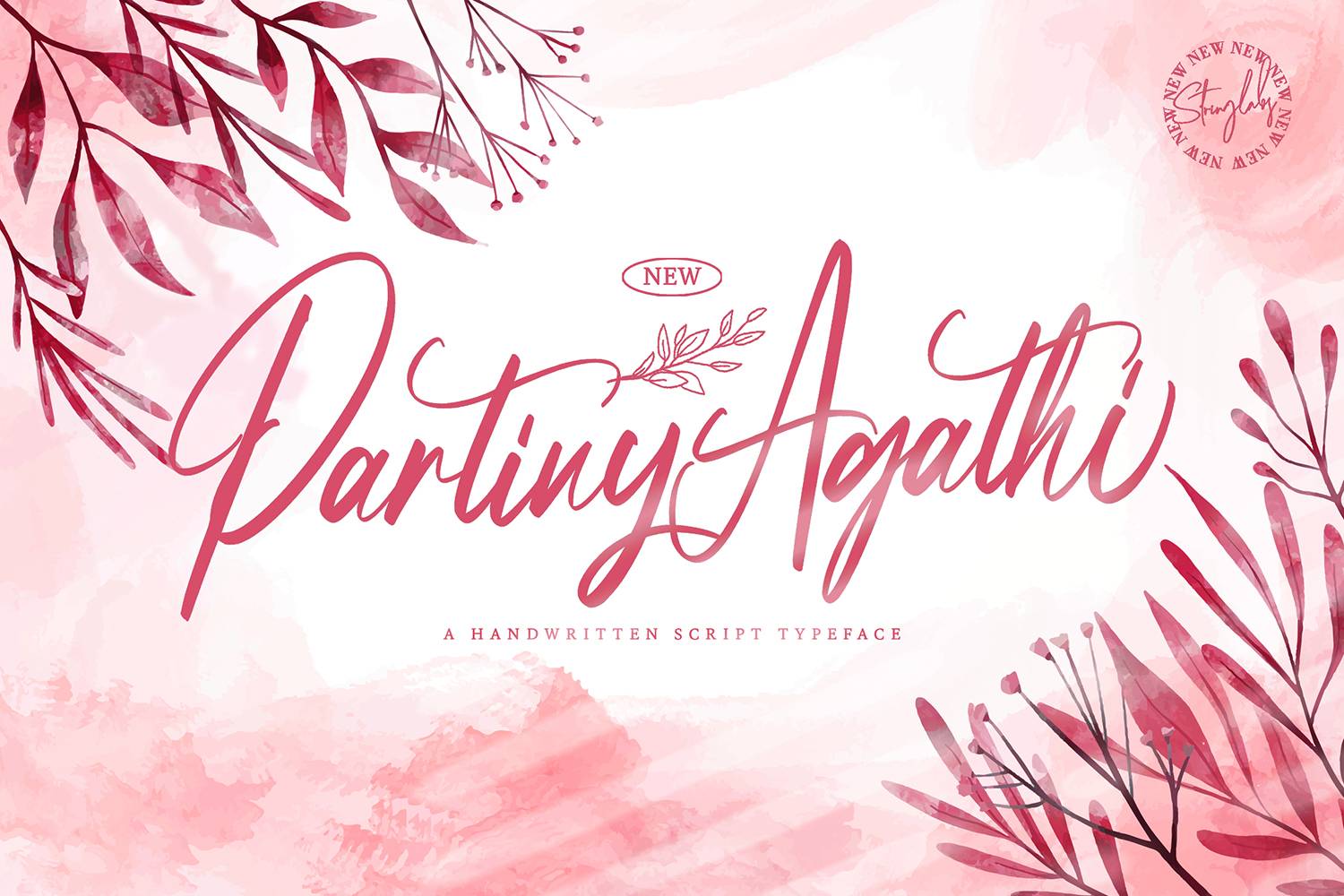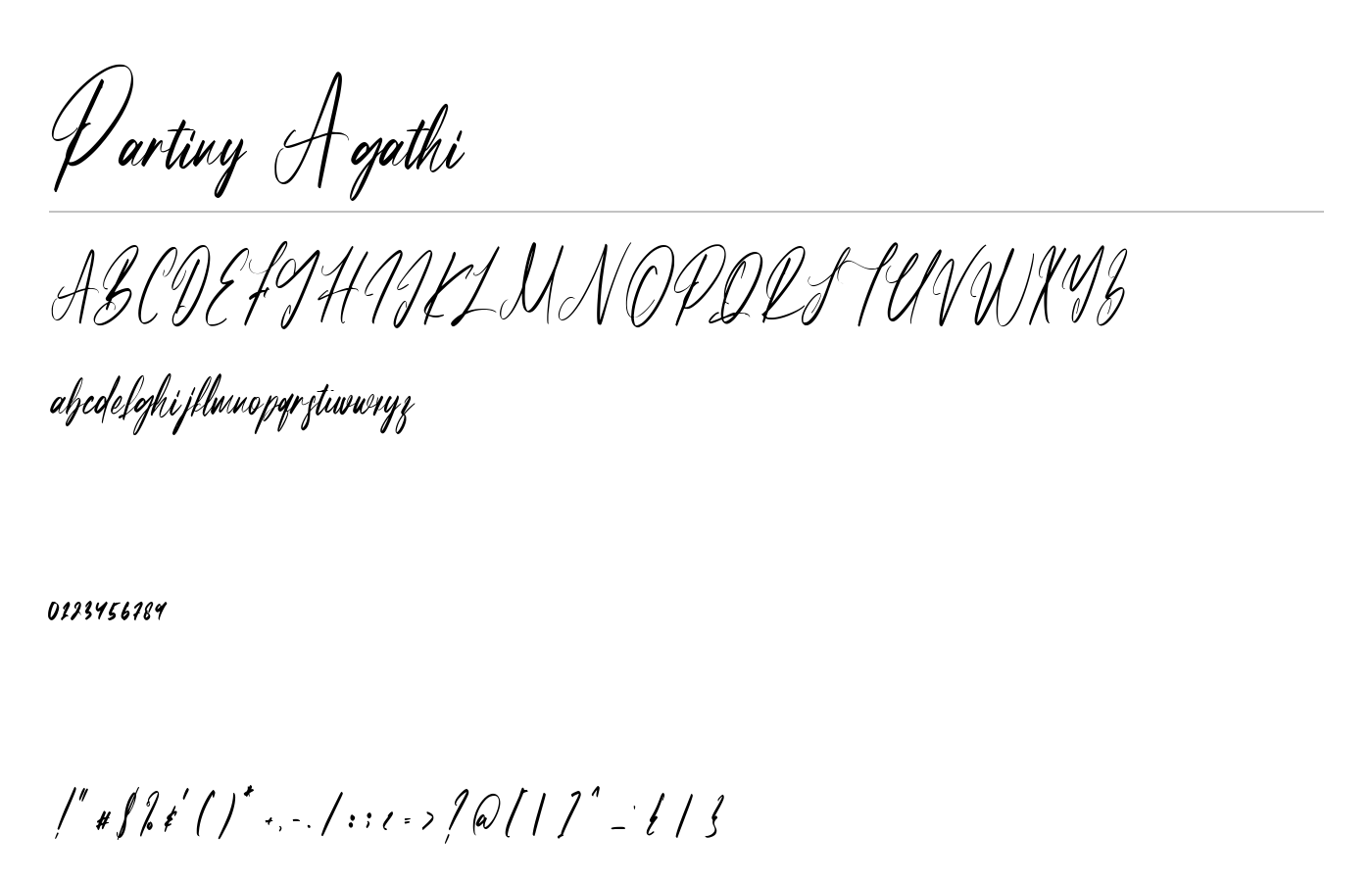
Partiny Agathi is an elegant script font with a delicate, handwritten style that combines thin strokes and graceful curves, creating a refined and feminine appeal. Its tall, narrow letterforms and fluid connections make it perfect for sophisticated branding, invitations, and stylish logos where a personal, artistic touch is desired. This font works beautifully for projects aiming to convey luxury, creativity, and elegance.
Partiny Agathi Font
About Partiny Agathi Font